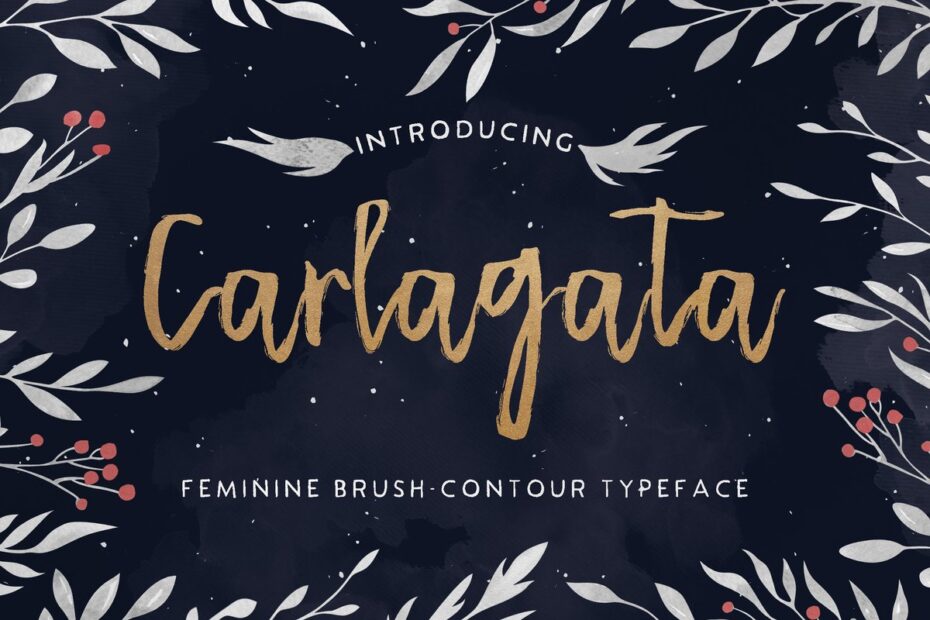
Unleashing Creativity with the Carlagata Font
Have you ever been stuck in front of a blank page, struggling to bring your creative vision to life? We’ve all been there – the blank slate staring back at us, taunting us to make a move. But what if the perfect spark was just a font away? Enter the Carlagata Font, a charming handwritten typeface that’s ready to ignite your imagination and inspire your next project.
This versatile font is perfect for everything from blog posts to logo designs, wedding cards to posters. Its unique brush texture effect adds a touch of personality to any design, making it a valuable asset for designers looking to add some flair to their work. With accented glyphs for international languages and a bonus Carlagata Brush typeface, the possibilities are endless.
- Unique Characteristics: Elegant, modern design with a touch of sophistication, suitable for various design applications, including logos, headings, and body text
Carlagata Font Review
Overall, I think the Carlagata Font is a decent addition to any typographer’s arsenal. ✨ The font’s unique blend of modern and vintage elements makes it a great choice for projects that need a touch of sophistication. The subtle irregularities in the font’s design add a layer of depth and character that can be really compelling.
Some of the standout features of the Carlagata Font include:
- Highly customizable: The font offers a wide range of OpenType features, including ligatures, swashes, and ornaments, making it a great choice for designers who like to get creative.
- Excellent legibility: The font is highly legible, even at smaller sizes, making it a great choice for body text.
- Unique aesthetic: The font’s blend of modern and vintage elements makes it a great choice for projects that need a unique look.
However, there are a few limitations to be aware of:
- ⚠️ Limited language support: The font only includes support for a limited number of languages, which may be a problem for designers working on international projects.
- ⚠️ Limited font sizes: The font may not be as effective at very large or very small font sizes, which could be a problem for designers who need to use the font in a variety of contexts.
Overall, I think the Carlagata Font is a solid choice for designers who are looking for a unique and sophisticated font. While it may have some limitations, the font’s high level of customization and excellent legibility make it a great choice for a wide range of projects.
Tips for Getting the Most Out of Carlagata Font
Use Carlagata Font for titles, headings, and other attention-grabbing text elements.
Pair Carlagata Font with other elegant fonts for a sophisticated look.
Experiment with different font sizes and styles to add visual interest to your design.
Use Carlagata Font for:
Branding and marketing materials
Editorial and publishing content